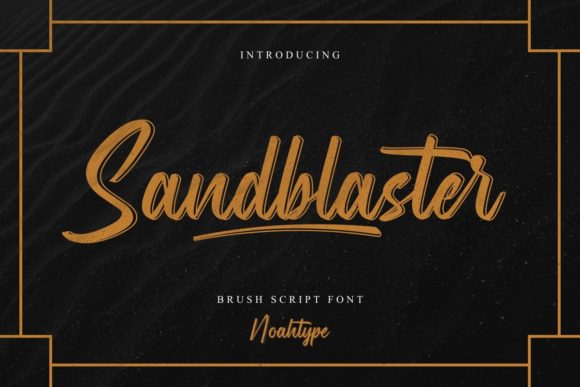
Unleash the charm of Sandblaster, an exquisitely captivating script font family that paints emotion and artistry into every character. Crafted by the visionary minds at NoahType, Sandblaster is a symphony of strokes that evokes a sense of nostalgia, warmth, and effortless cool.
Immerse yourself in Sandblaster's elegant dance, a graceful harmony of curves and swashes that intertwine with the flow of your words. Its carefully crafted glyphs and the convenience of PUA encoding allow for seamless access to a world of possibilities, opening up endless avenues for creative expression.
Sandblaster is not just a font; it's an experience. Whether you're designing wedding invitations that whisper romance, creating eye-catching logos that leave a memorable impression, or crafting social media posts that captivate and engage, Sandblaster is your artistic muse.
Embark on a journey through imagination as Sandblaster becomes your trusted companion. Let your creativity flourish as you design T-shirts and tote bags that reflect your unique style, or create custom posters that boldly proclaim your messages. The versatility of Sandblaster knows no bounds, making it the perfect choice for a multitude of projects.
With Sandblaster, you'll discover a new realm of artistic possibilities, where every letter becomes a brushstroke and each word a masterpiece. Its modern brush script design adds a touch of sophistication and charm to any project, effortlessly elevating your designs to new heights.